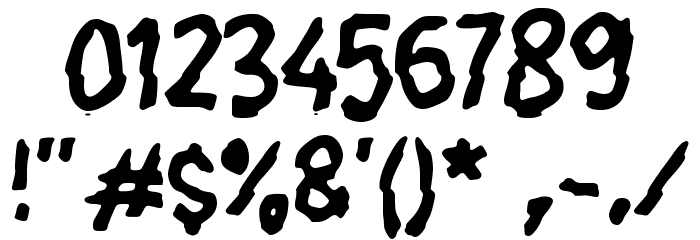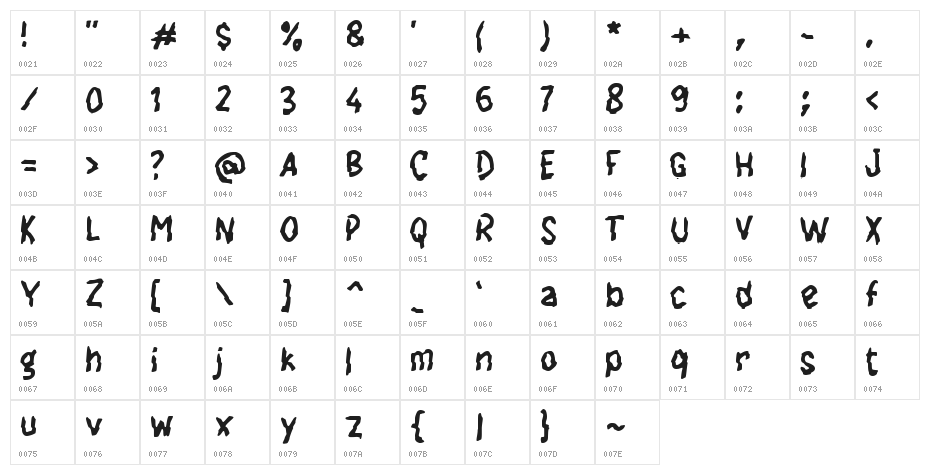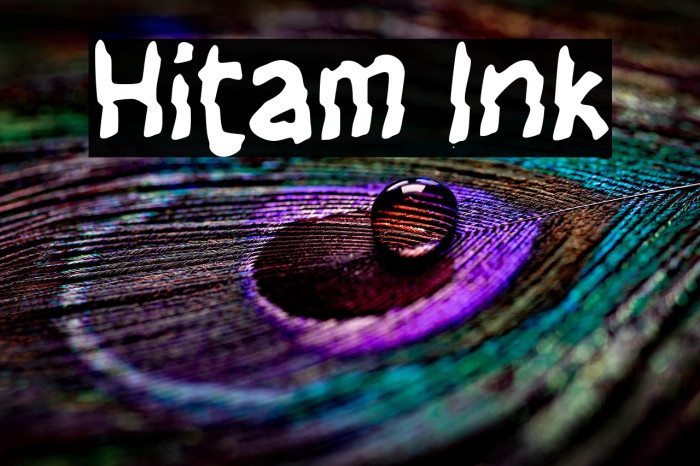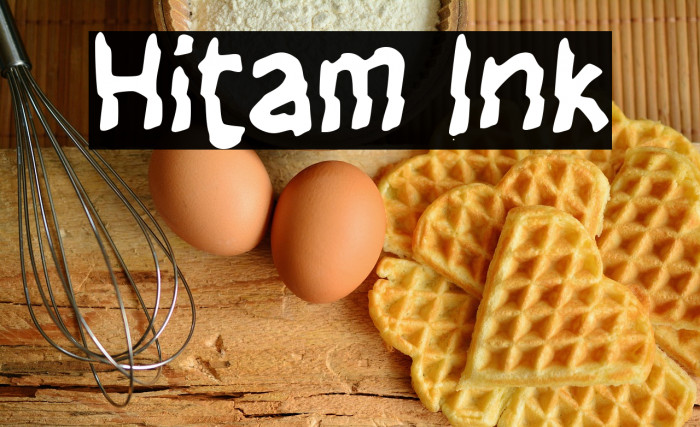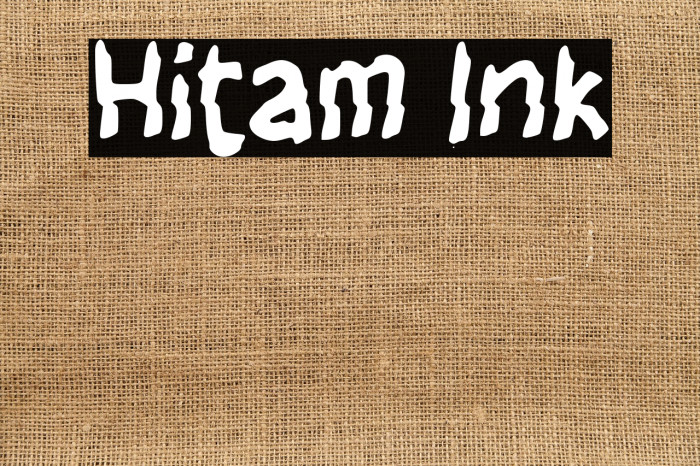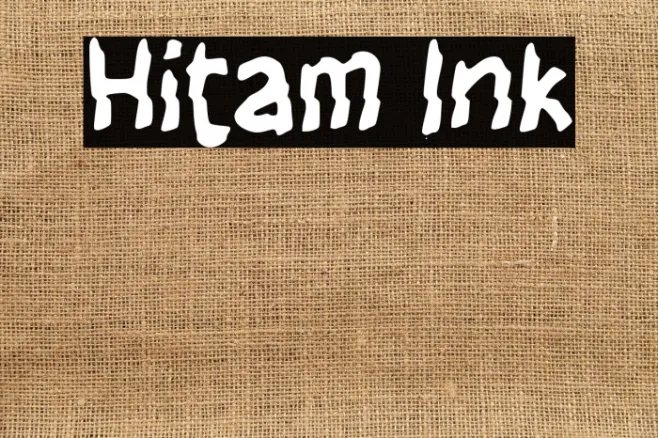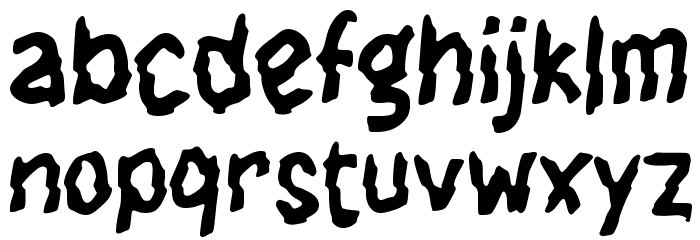
Hitam Ink Font
Hitam Ink Description
This font features a bold and expressive style, reminiscent of hand-drawn ink strokes. The characters are irregular and dynamic, giving a sense of movement and energy. The uppercase and lowercase letters maintain a consistent thickness, while the numbers and special characters follow the same lively design. The overall appearance is artistic and slightly chaotic, making it ideal for projects that require a personal touch or a creative flair. The font's unique style stands out, making it suitable for eye-catching designs.